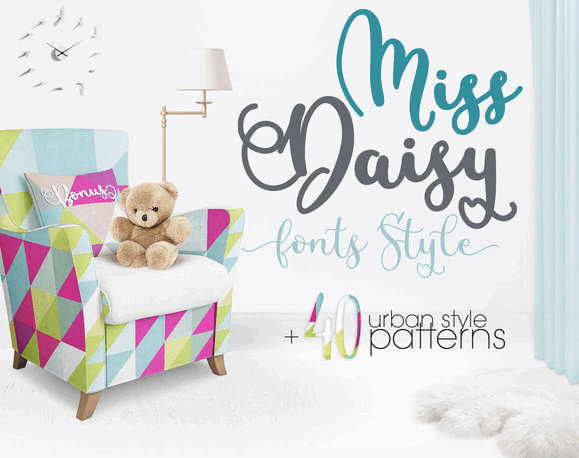
Miss Daisy Script Font
Miss Daisy is a beautiful script monoline font that you can use for any purposes of your projects, such as logos & branding, invitation, stationery, wedding designs, social media posts, advertisements, product packaging, product designs, label, photography, watermark, special events or anything that need handwriting taste. Miss Daisy fonts available in 2 weights, Smooth style in Bold and Light. And extra 2 styles of swashes available for giving us more flexibility to create creative design.